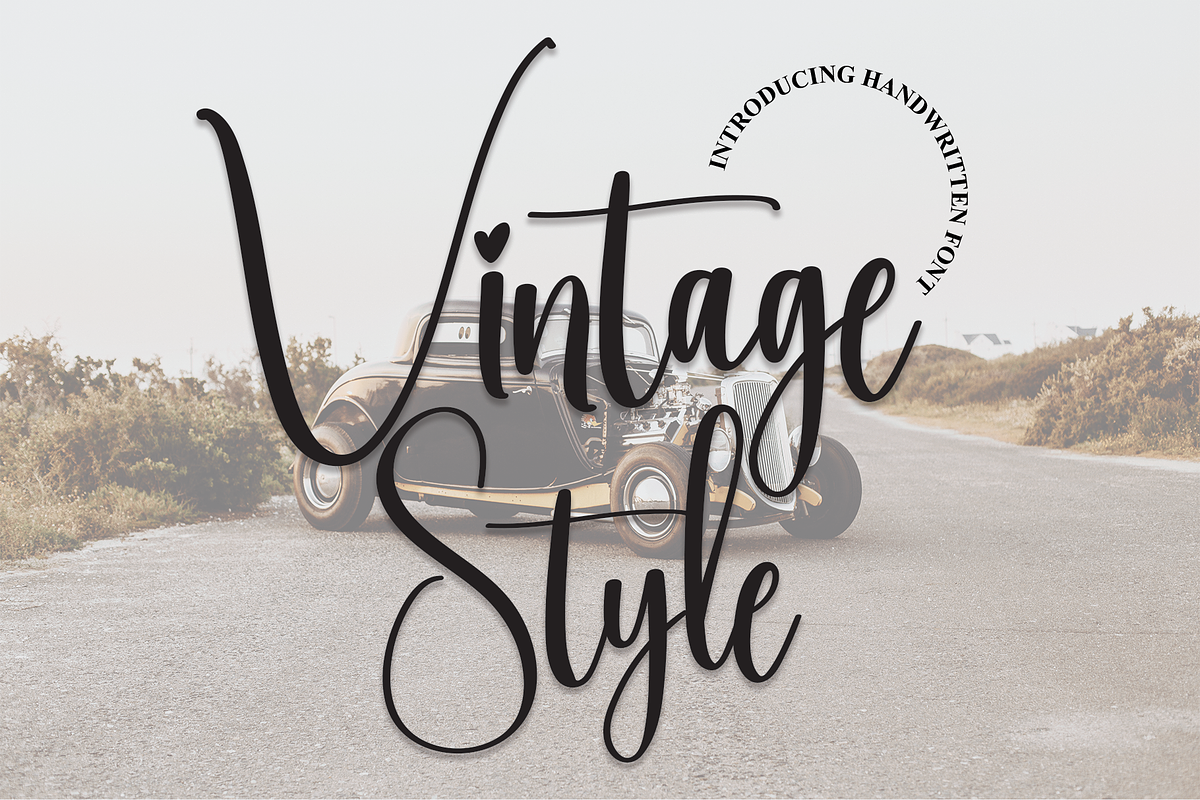
The Vintage Style | Script Font Free Download is a beautifully crafted, retro-inspired script typeface perfect for adding a nostalgic and elegant touch to your designs. With its smooth curves and sophisticated strokes, this font is ideal for creating vintage logos, invitations, posters, and branding projects. Whether you're designing for a retro-themed event or a classic brand, this font adds timeless charm to any creative project.
Vintage Style | Script Font Free Download is perfect for designers looking for a classy and vintage touch. Its elegant script style brings a sense of refinement to invitations, branding, and more. Download this stunning font today and elevate your creative work with its stylish and vintage charm!